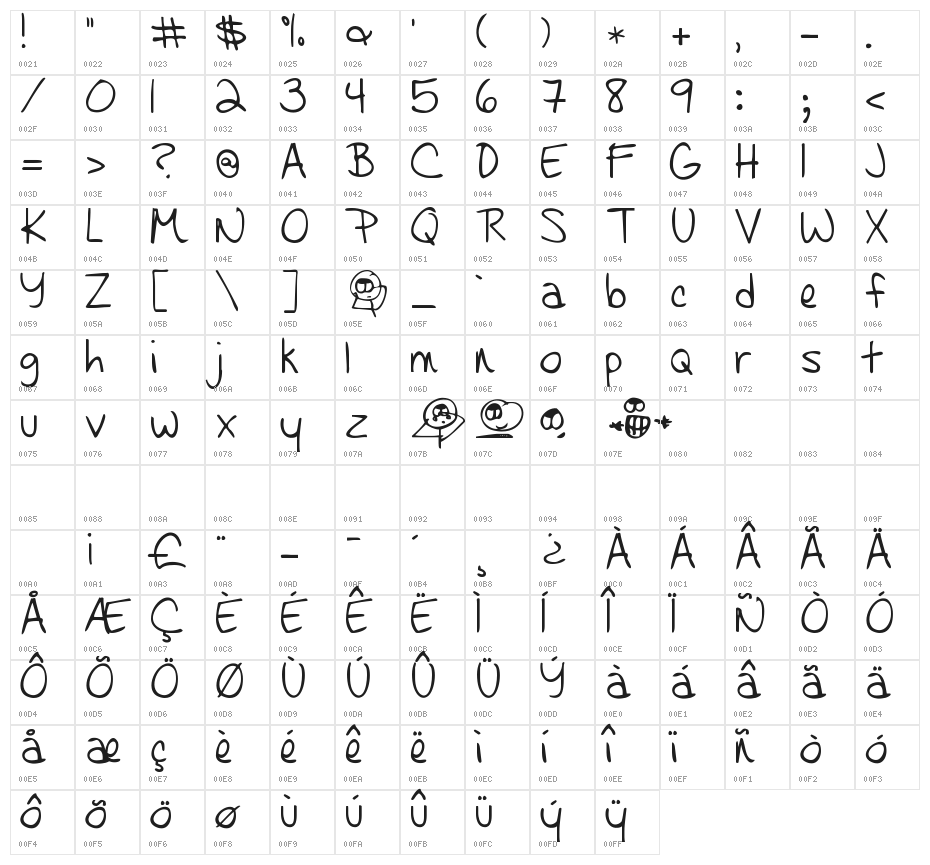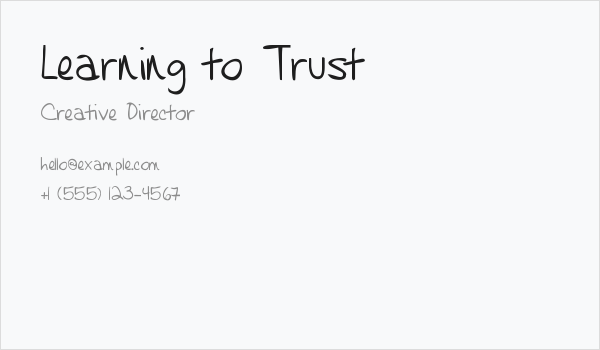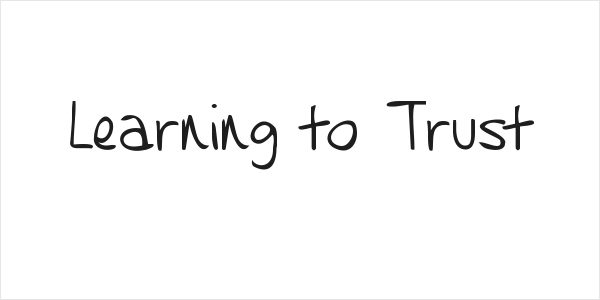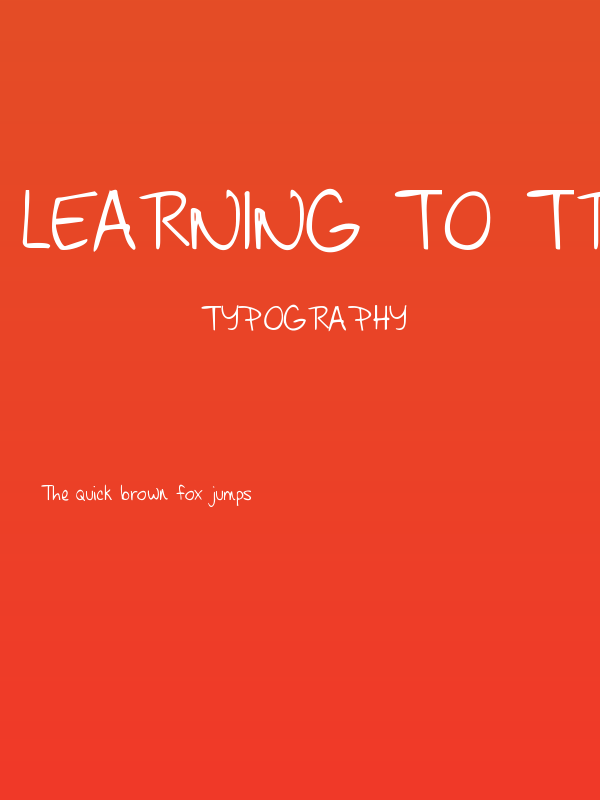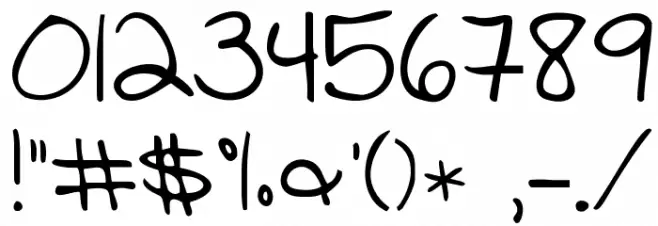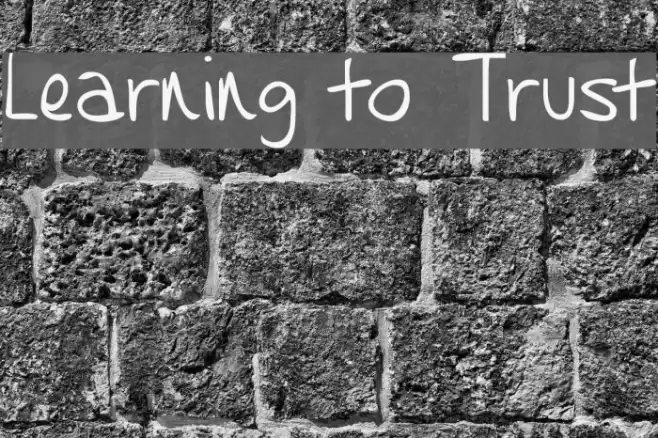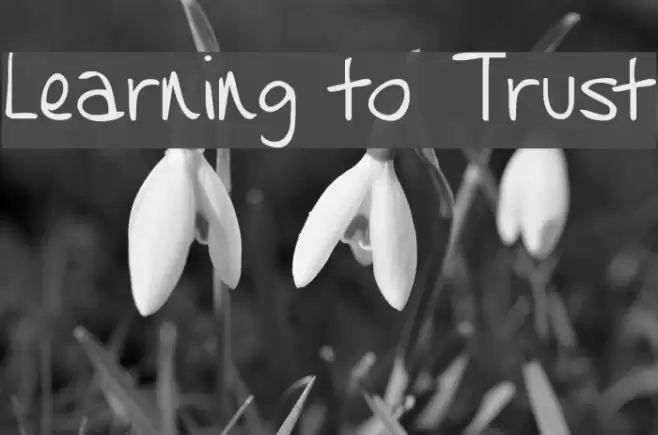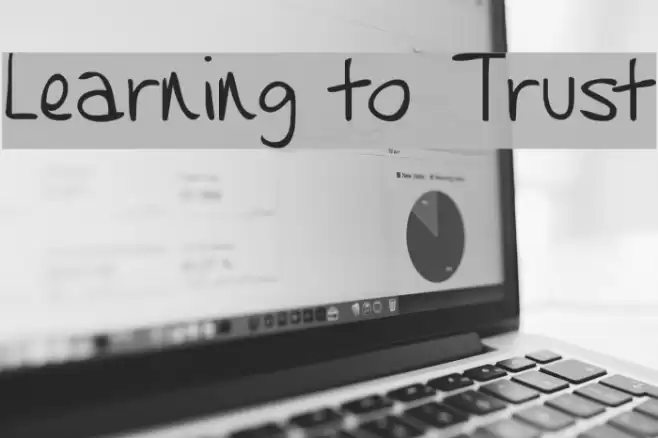
Learning to Trust Font
Learning to Trust Description
This playful and informal font features a handwritten style with a casual and friendly appearance. The letters are slightly irregular, giving it a natural and organic feel. The strokes are smooth and rounded, with a consistent thickness that adds to its legibility. The font exudes a sense of warmth and approachability, making it ideal for projects that require a personal touch. It includes a full set of uppercase and lowercase letters, numbers, and a variety of special characters, ensuring versatility in its application.
| Overall Style | Casual |
| Use Case | Headlines, Informal text, Personal projects |
| Proposed Projects | Ideal for children's books, greeting cards, personal blogs, and informal branding. |